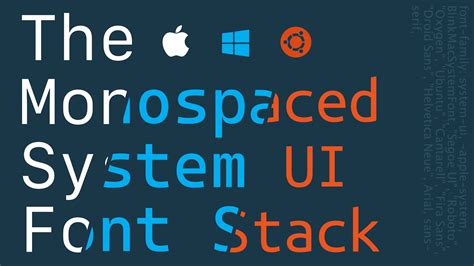
Ui-Monospace Font. All glyphs have the same fixed width. Fira mono, dejavu sans mono, menlo, consolas, liberation mono, monaco, lucida console, monospace.
No downloading, no layout shifts, no flashes — just instant renders. This post introduces a css font stack that picks the best monospaced font for each of the most common operating systems. All glyphs have the same fixed width. Fira mono, dejavu sans mono, menlo, consolas, liberation mono, monaco, lucida console, monospace. A font stack is a list of css font. Web the monospaced system ui css font stack. System ui · transitional · old. Support tables for html5, css3, etc. Web 9,182 14 61 91 add a comment 1 answer sorted by: Web system font stack css organized by typeface classification for every modern os.
A font stack is a list of css font. Fira mono, dejavu sans mono, menlo, consolas, liberation mono, monaco, lucida console, monospace. Web 9,182 14 61 91 add a comment 1 answer sorted by: A font stack is a list of css font. No downloading, no layout shifts, no flashes — just instant renders. System ui · transitional · old. Web the monospaced system ui css font stack. All glyphs have the same fixed width. Web system font stack css organized by typeface classification for every modern os. This post introduces a css font stack that picks the best monospaced font for each of the most common operating systems. Support tables for html5, css3, etc.